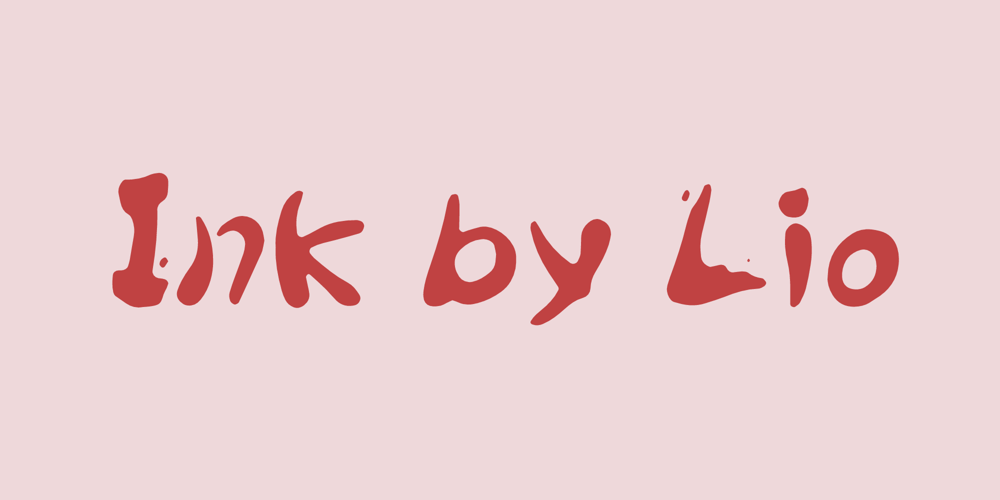
Ink by Lio Font Family was designed by Ililion Leon Bravo Lemes and published by Ililion. Ink by Lio contains 1 styles and family package options. Ink by Lio is a handcrafted font for use in many different projects. It is inspired by Japanese ink calligraphy and has all basic glyphs for various uses.